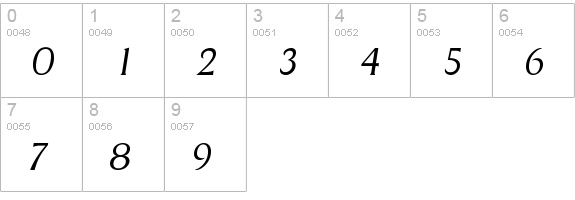
DragonEF-ExtraLightItalic is a sleek and elegant typeface that exudes sophistication and modernity. Its delicate and slanted design adds a touch of grace to any text, making it perfect for projects that require a refined and stylish appearance. The thin, light strokes of the letters give this font a sense of airiness and fluidity, making it a versatile choice for a wide range of design applications. What makes DragonEF-ExtraLightItalic even more appealing is the fact that it is available for free download at FontsMarket.com. This means that you can easily access this stunning font and use it in your projects without any cost. Whether you are creating a website, designing a logo, or working on a print layout, DragonEF-ExtraLightItalic is sure to elevate your work and leave a lasting impression on your audience. Download this exquisite font today and bring a touch of elegance to your designs.